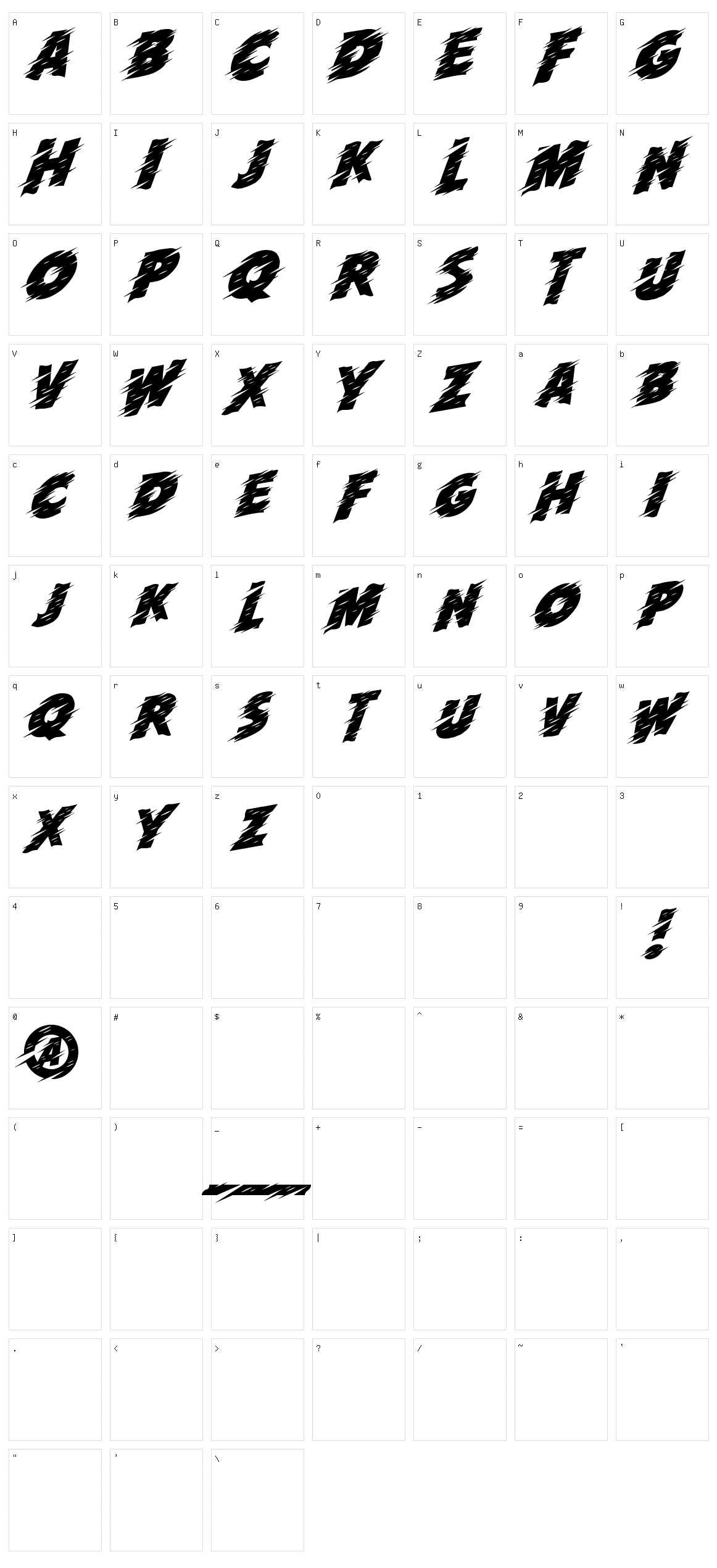
The free font Run! is carefully designed by The Branded Quotes, showcasing a thoughtful balance of creativity and usability and falls under the Horror font style. When you download the ZIP file, it contains only 3700.21 KB of font files, making it lightweight and quick to download. Please review the license details below to understand permitted usage and distribution rights. If license information is not available, we recommend using this font for personal projects only or contacting the author directly for commercial usage permissions.